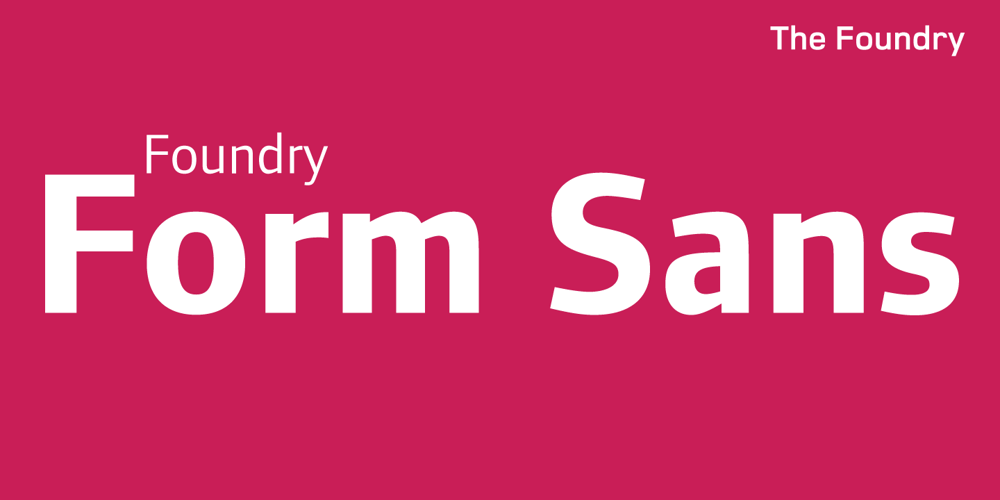
Foundry Form Sans Font Family was designed by Freda Sack, David Quay and published by The Foundry. Foundry Form Sans contains 9 styles and family package options. Foundry Form Sans and Serif were drawn concurrently with matching proportions for harmonious use. Although designed to complement each other both families function independently. The Foundry Form Sans characters have a strong horizontal emphasis for readability; open counters to improve legibility at small sizes; and slightly condensed proportions to ensure economic use of space. Foundry Form Sans has a simplicity of design approach balanced with just enough character to achieve a unique, timeless look.